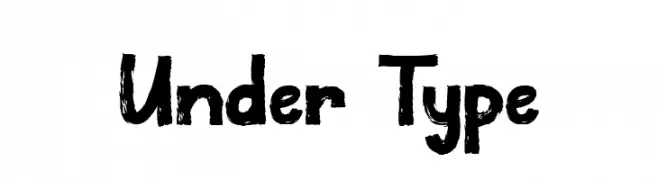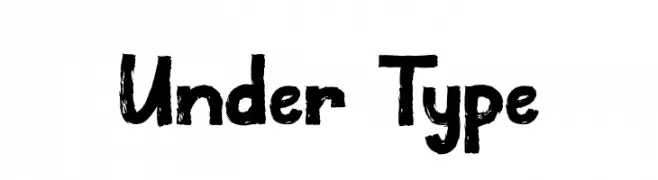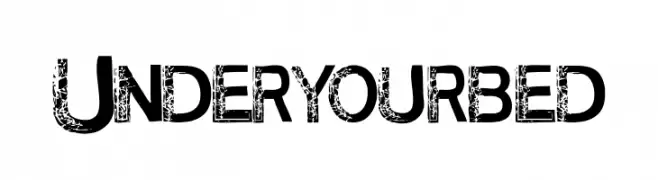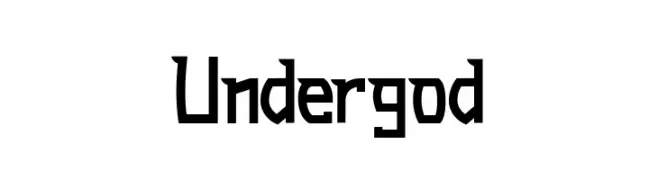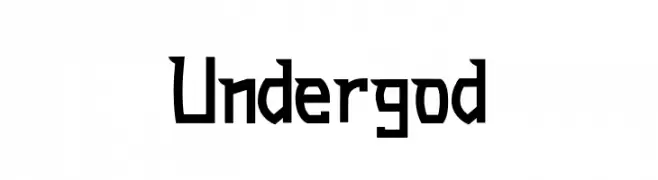
A bold, hand-painted style font with textured, irregular strokes.
A bold, hand-drawn font with a rugged, textured appearance.
A bold, distressed font with a grungy, textured appearance.
A rugged, hand-drawn font with angular strokes and a unique, edgy appearance.
A playful, hand-drawn font with a whimsical and informal style.
A bold, geometric font with sharp angles and a modern look.
A bold, angular font with a geometric and modern design.
A bold, chunky, and playful font with a modern decorative style.